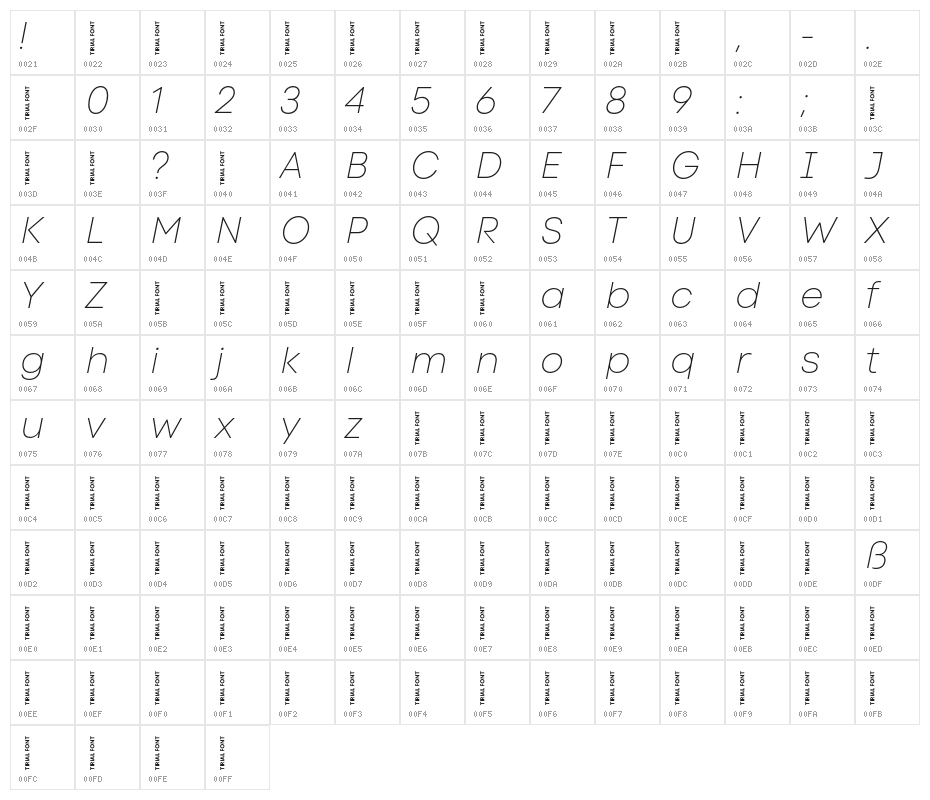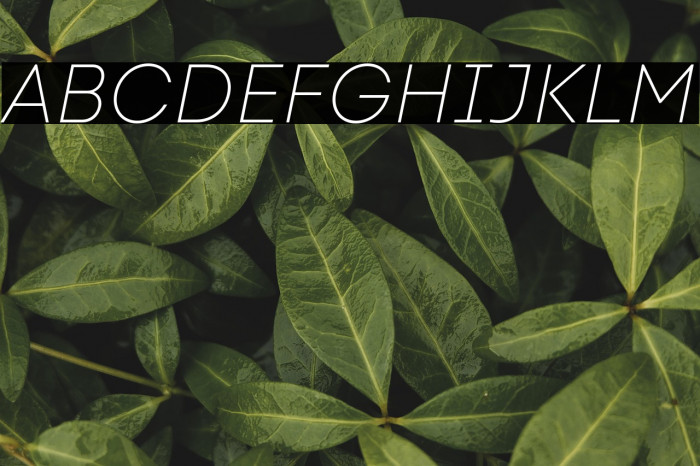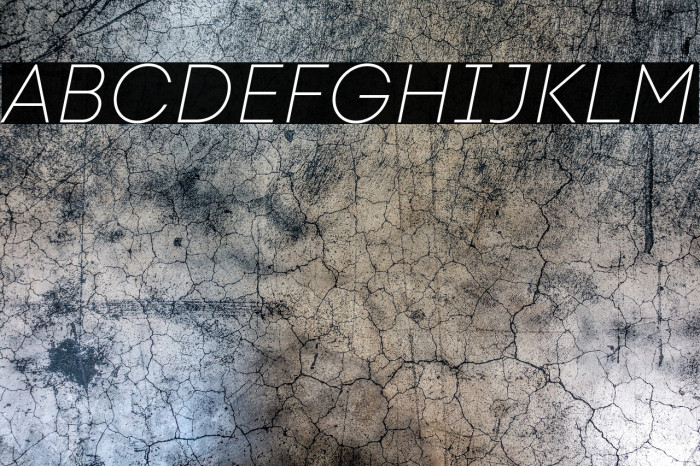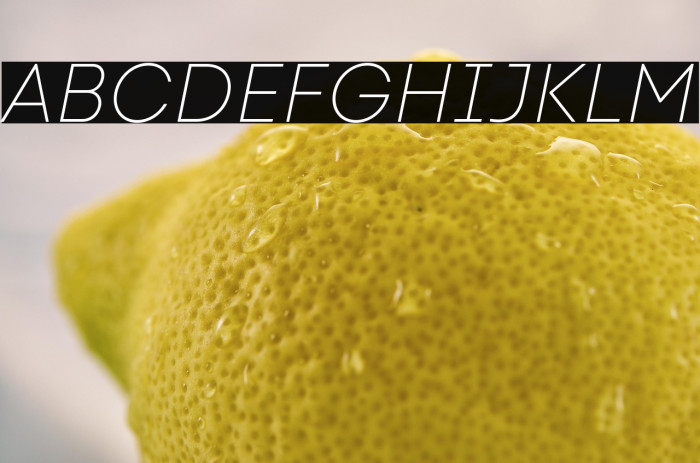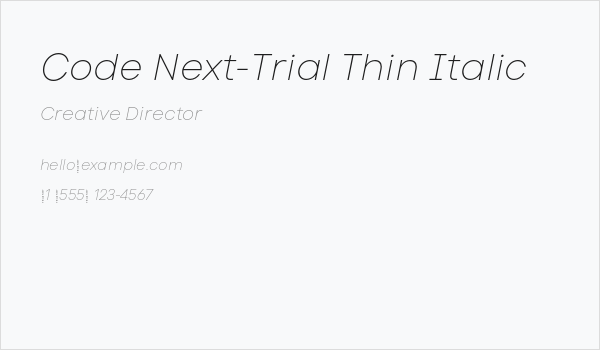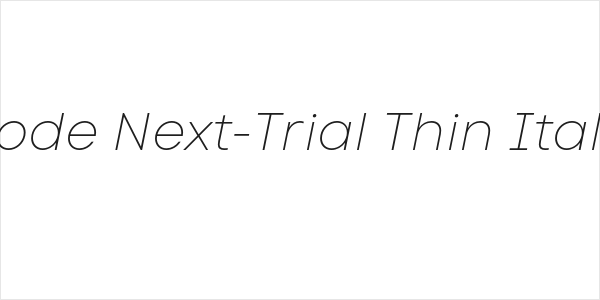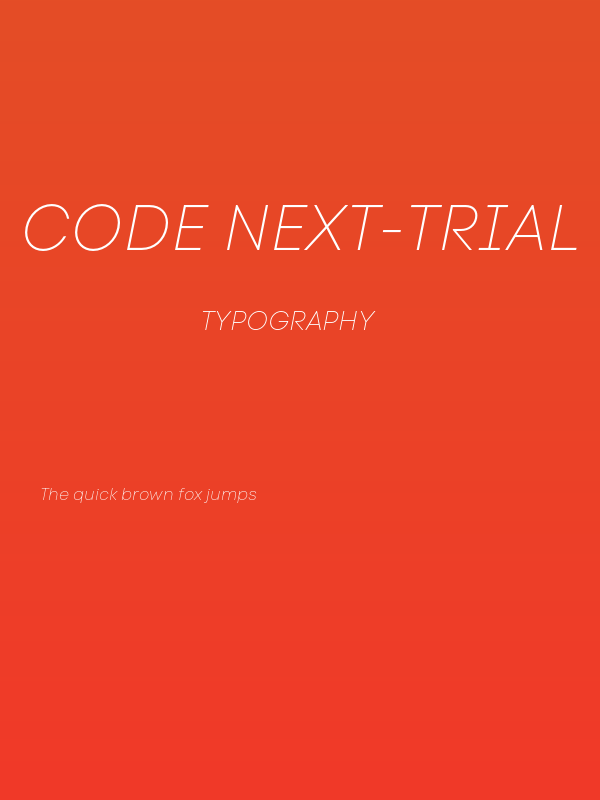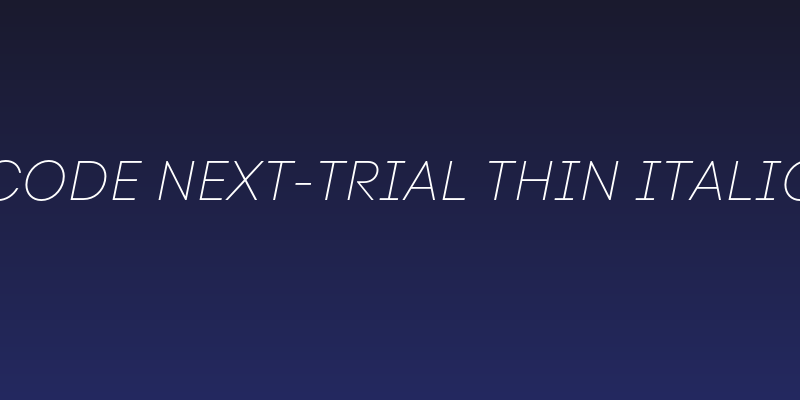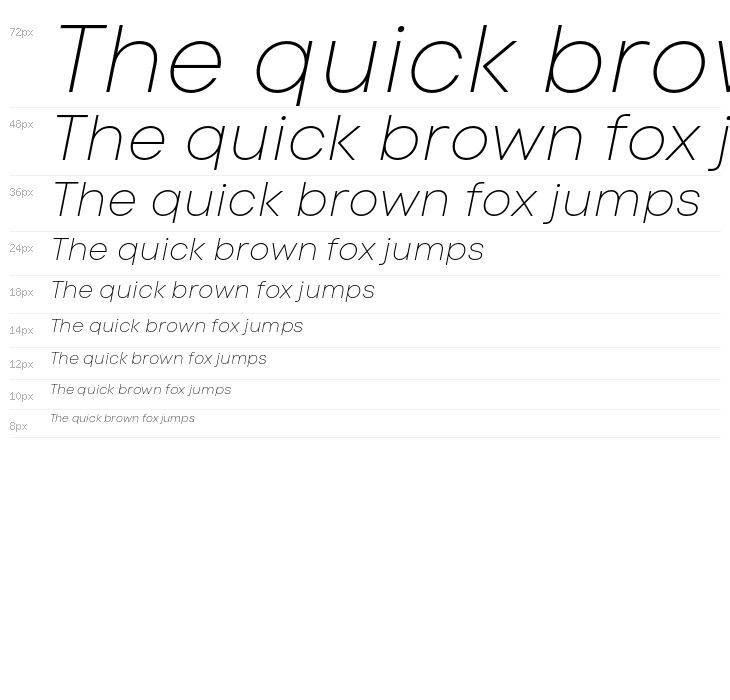
Code Next-Trial Thin Italic Font
Code Next-Trial Thin Italic Description
This font features a sleek and modern design with a thin and elegant stroke, giving it a sophisticated and contemporary appearance. The italic style adds a dynamic and fluid touch, enhancing its visual appeal. The characters are well-proportioned with a consistent slant, providing a sense of movement and grace. The uppercase and lowercase letters maintain a uniform style, while the numerals are clear and easily readable. Special characters are included, maintaining the overall aesthetic. The font's thin weight and italic nature make it suitable for projects that require a refined and stylish look.